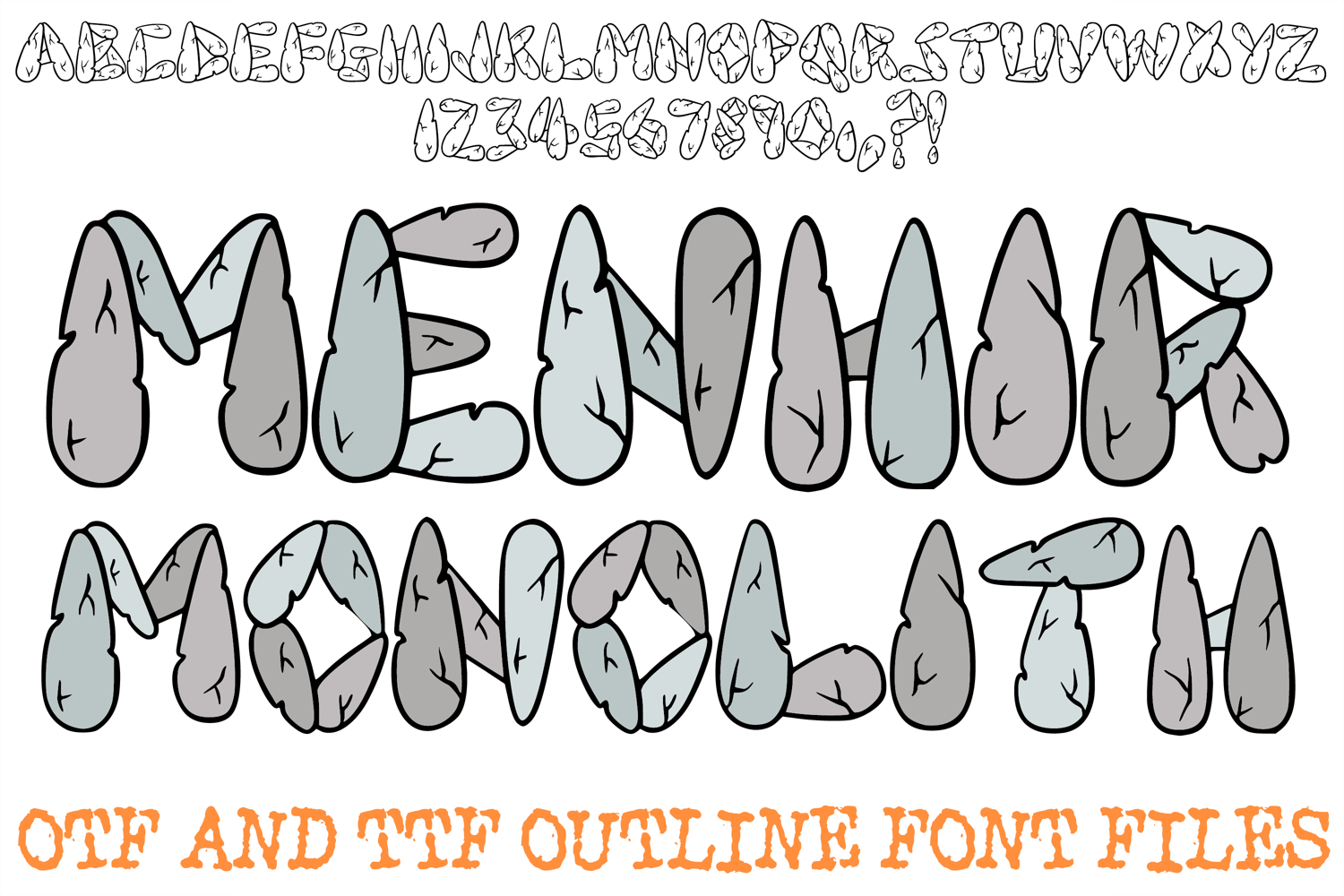
The Menhir Monolith Font is a rugged, hand-drawn display typeface that captures the ancient, towering presence of prehistoric standing stones. Featuring heavy, boulder-like shapes and deep-etched fractures, this font is the perfect choice for adventure-themed branding, tabletop gaming assets, museum exhibits, and bold "stone-age" aesthetic designs.
Each character is meticulously crafted with a weighty, artisan feel, blending smooth weathered curves with jagged cracks that make your text appear as if it were hewn from solid granite. Whether you are a designer creating book covers for an epic fantasy or a crafter working on prehistoric party decor, the Menhir Monolith Font adds a timeless, monumental touch to every project.
Artisan Stone Lettering: Every letter (A–Z) and number (0–9) features unique rock textures and realistic boulder silhouettes inspired by megalithic structures.
Clean Hand-Drawn Outlines: The bold, well-defined black outlines are optimized for layered paper cutting, heat transfer vinyl, and high-quality sublimation.
Rugged & Versatile: The massive weight and "monolithic" aesthetic make it ideal for outdoor branding, gaming logos, and impactful historical holiday decor.